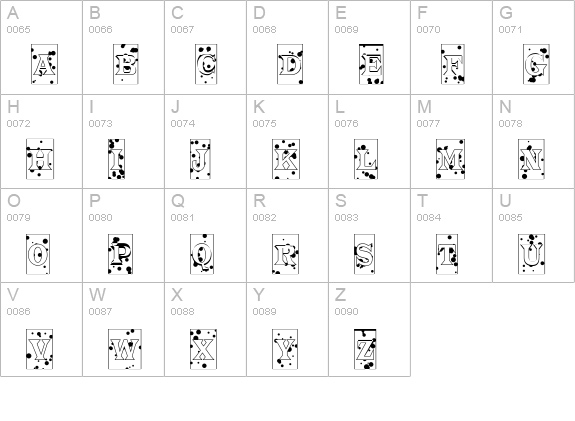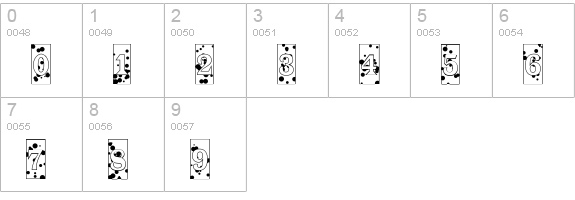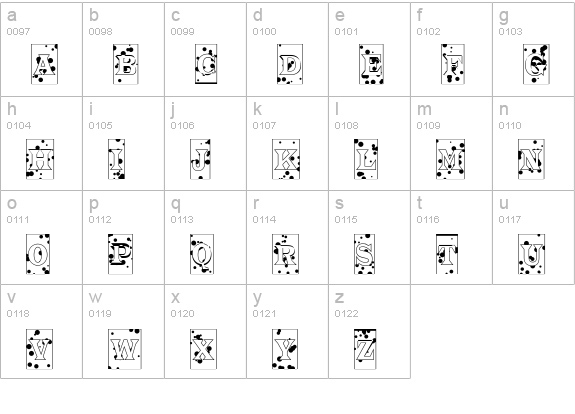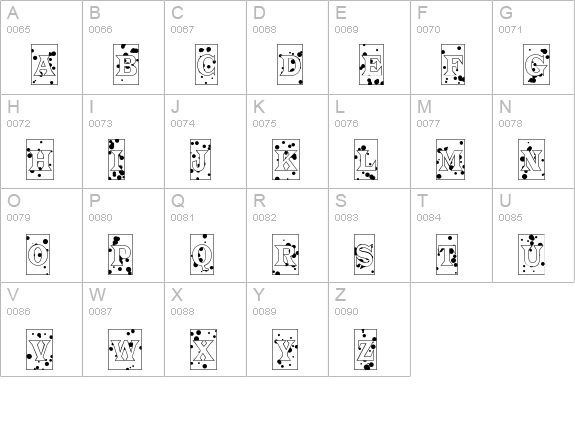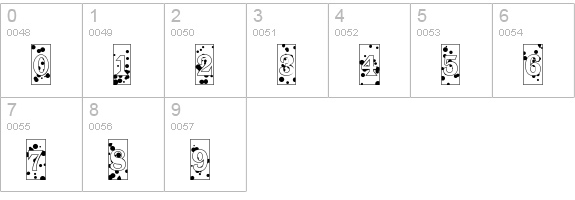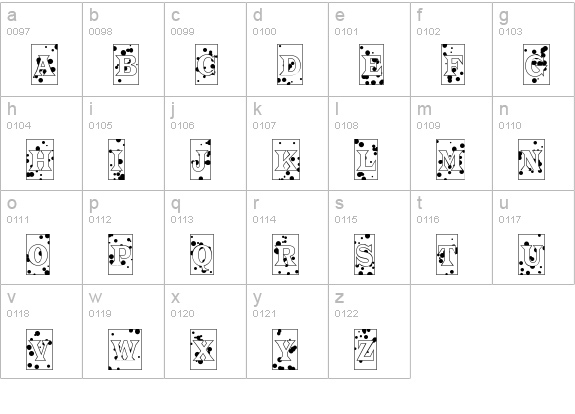
Introducing TrianglerCmInkBl font, a unique and artistic typeface that will bring a touch of creativity to your projects. This font features a bold and edgy design, inspired by triangular shapes and ink splatters. Perfect for adding a modern and dynamic look to your designs, TrianglerCmInkBl is sure to make a statement. Best of all, TrianglerCmInkBl is completely free to download at FontsMarket.com. You can easily access this font and use it for a variety of purposes, whether it's for branding, advertising, or graphic design projects. Don't miss out on this opportunity to enhance your creations with the bold and eye-catching TrianglerCmInkBl font. Download it now and unleash your creativity!